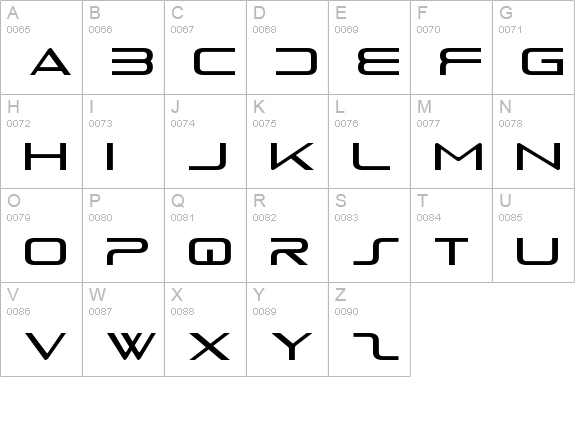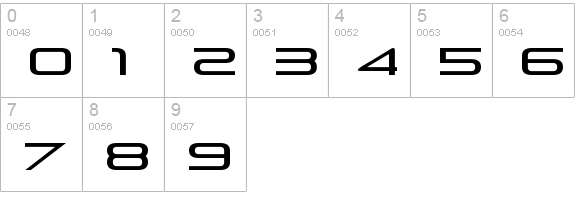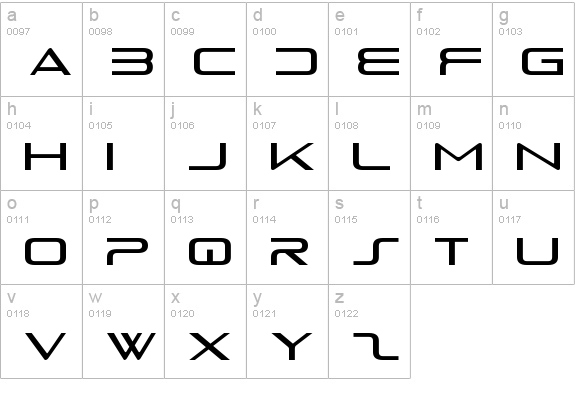
The Rave Is In Your Pants Font Details
The Rave Is In Your Pants font is a vibrant and energetic typeface that will bring a party to your design projects. With its bold and playful style, this font is perfect for creating eye-catching headlines, posters, and event invitations. The Rave Is In Your Pants font exudes a sense of fun and excitement, making it ideal for projects that aim to stand out and make a statement. Best of all, The Rave Is In Your Pants font is available for free download at FontsMarket.com. Whether you're a designer looking to add some flair to your work or someone in need of a lively font for a special occasion, this font is sure to impress. Don't miss out on the opportunity to get your hands on this dynamic and engaging typeface today!